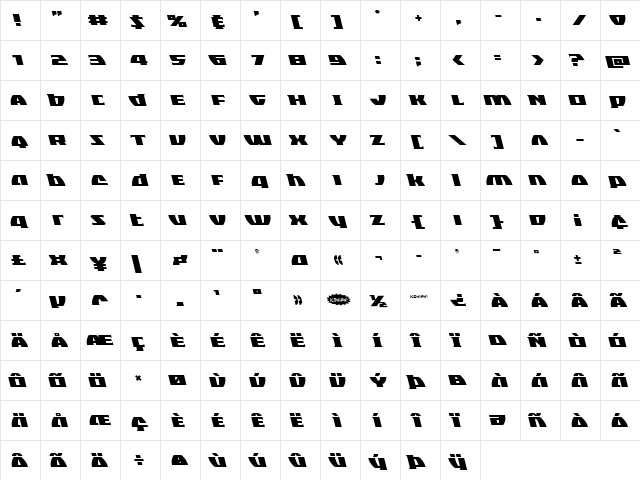
Black Bishop Leftalic Italic
Design Context for Black Bishop Leftalic Typeface
Black Bishop Leftalic is a composed and adaptable typeface that performs quietly and consistently across a wide range of design contexts. Its italic angle brings a sense of urgency and motion to the letterforms.
Pro Tip: Use Black Bishop Leftalic for emphasis, pull quotes, and subheadings where its slanted energy can add rhythm to the layout.